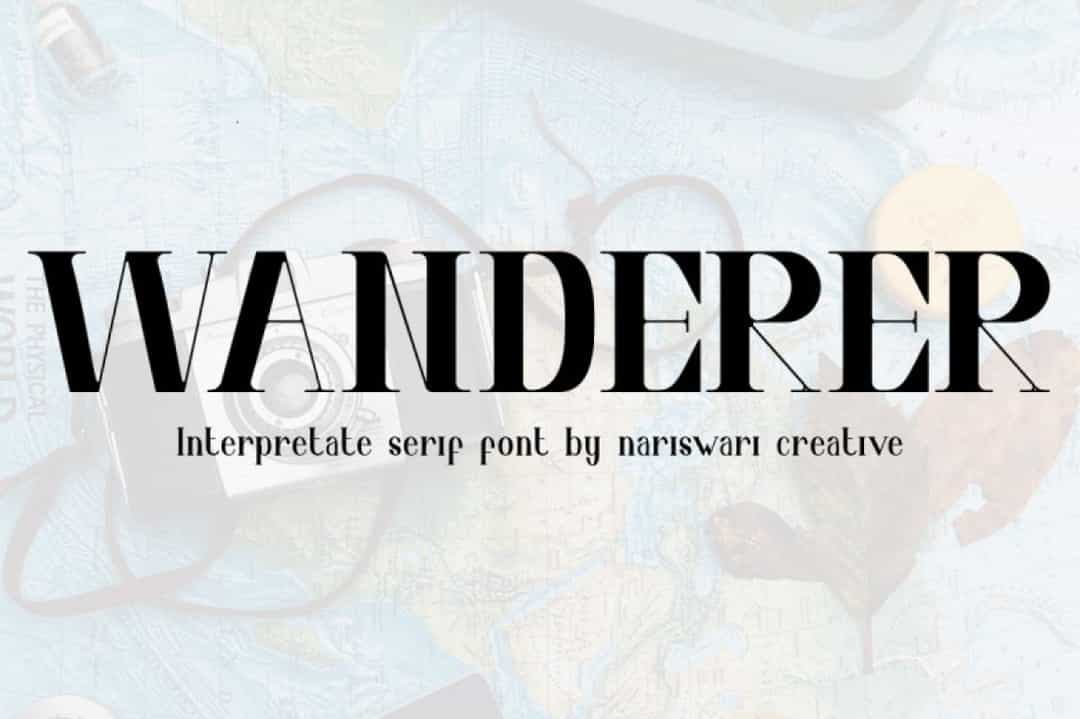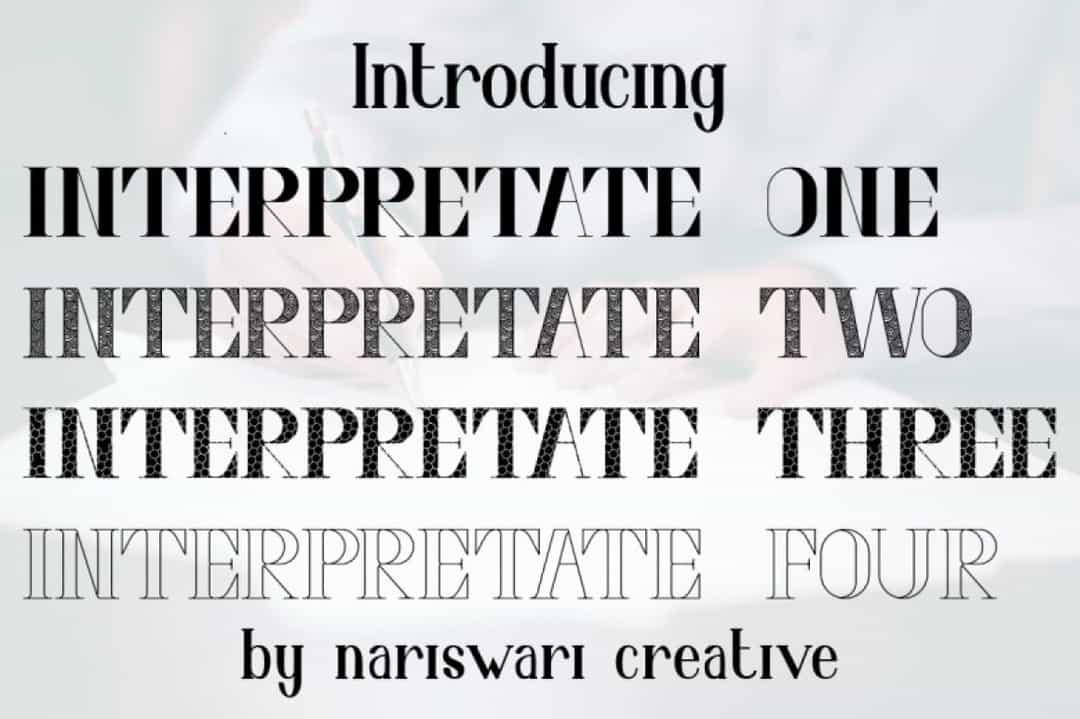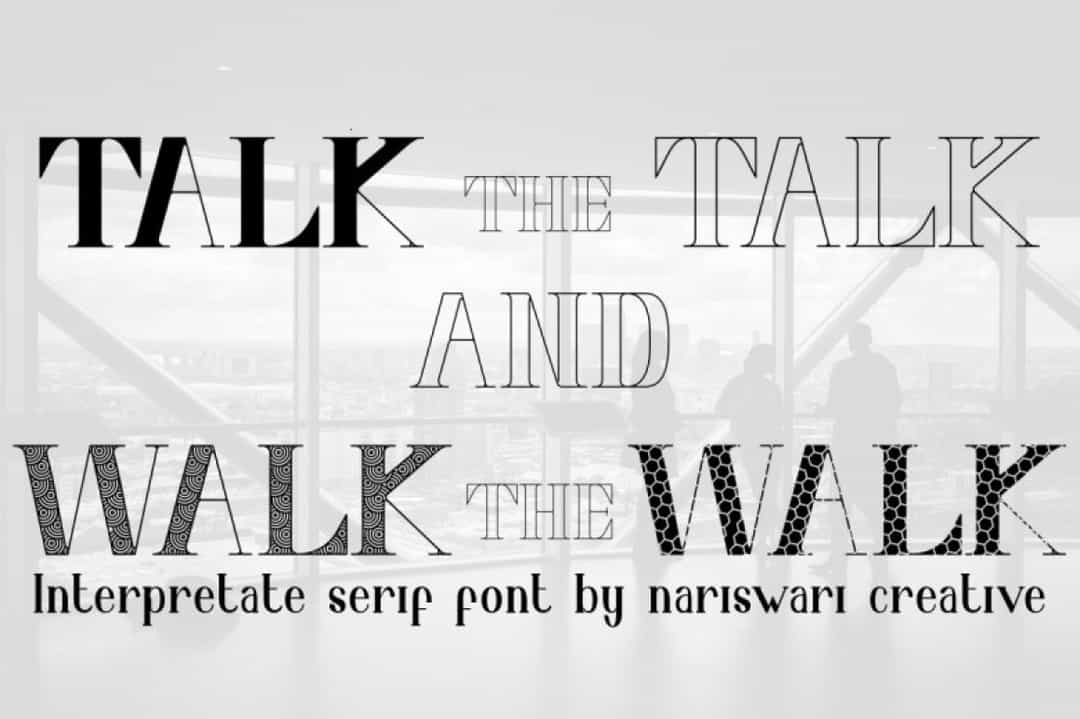
Interpretate Four Font
Interpretate Font is a genuine and strong serif font family that has been created to cater for the creative needs in letterheads, titles and other stationery uses.